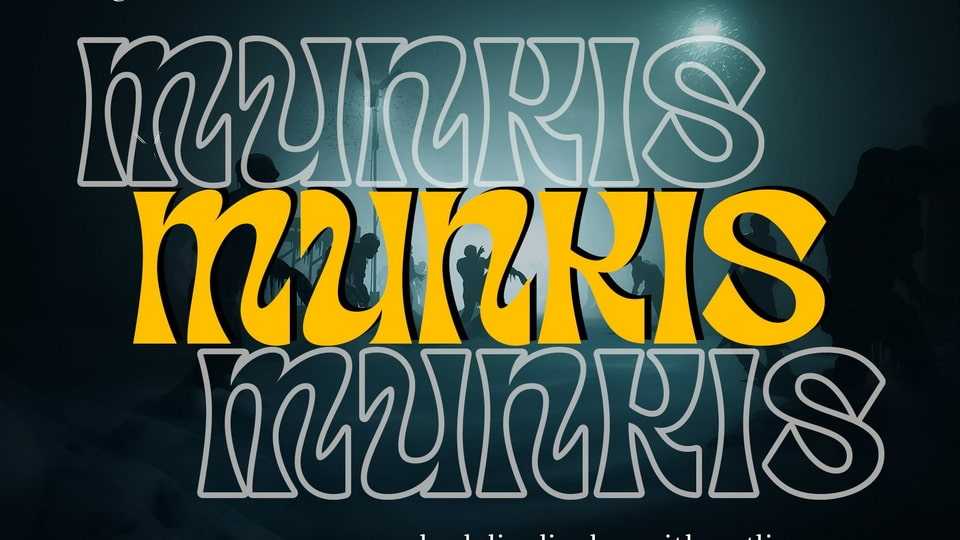
Download Munkis font, a retro-themed serif typeface that offers a unique and attractive look to the letters. With a distinctly vintage touch, Munkis evokes a unique character and style.